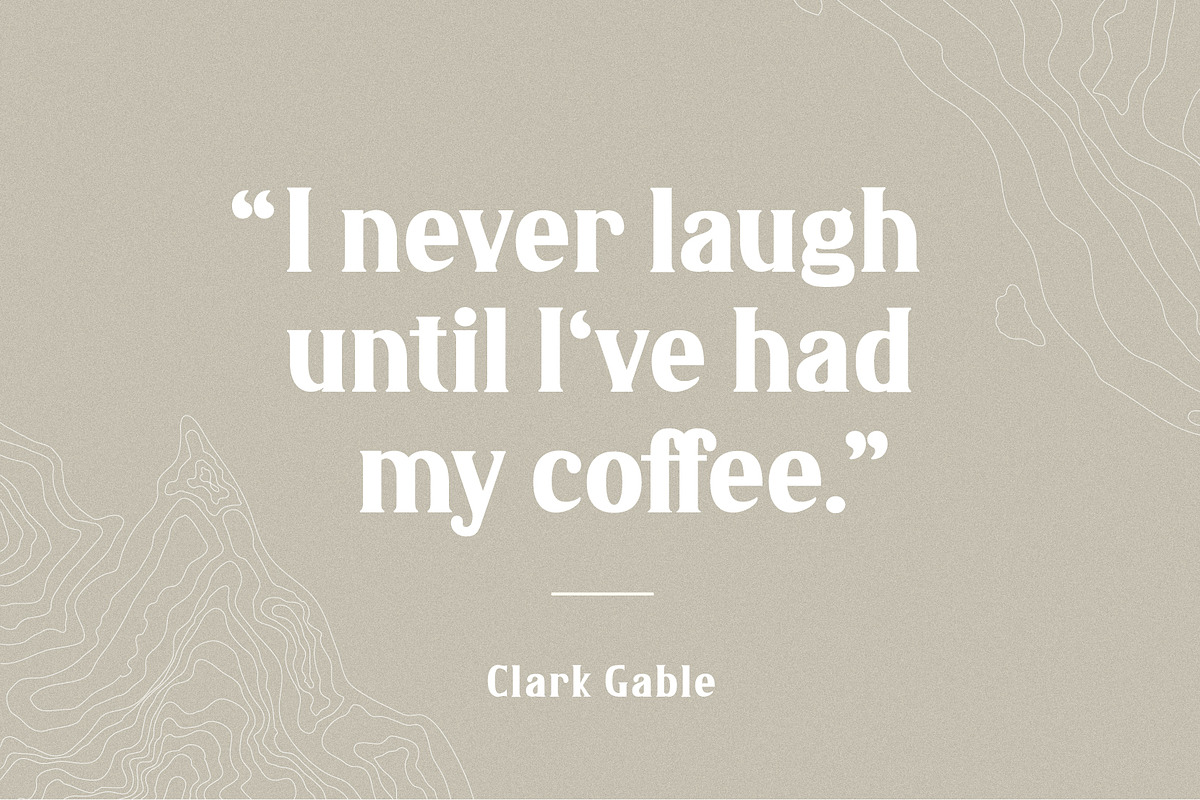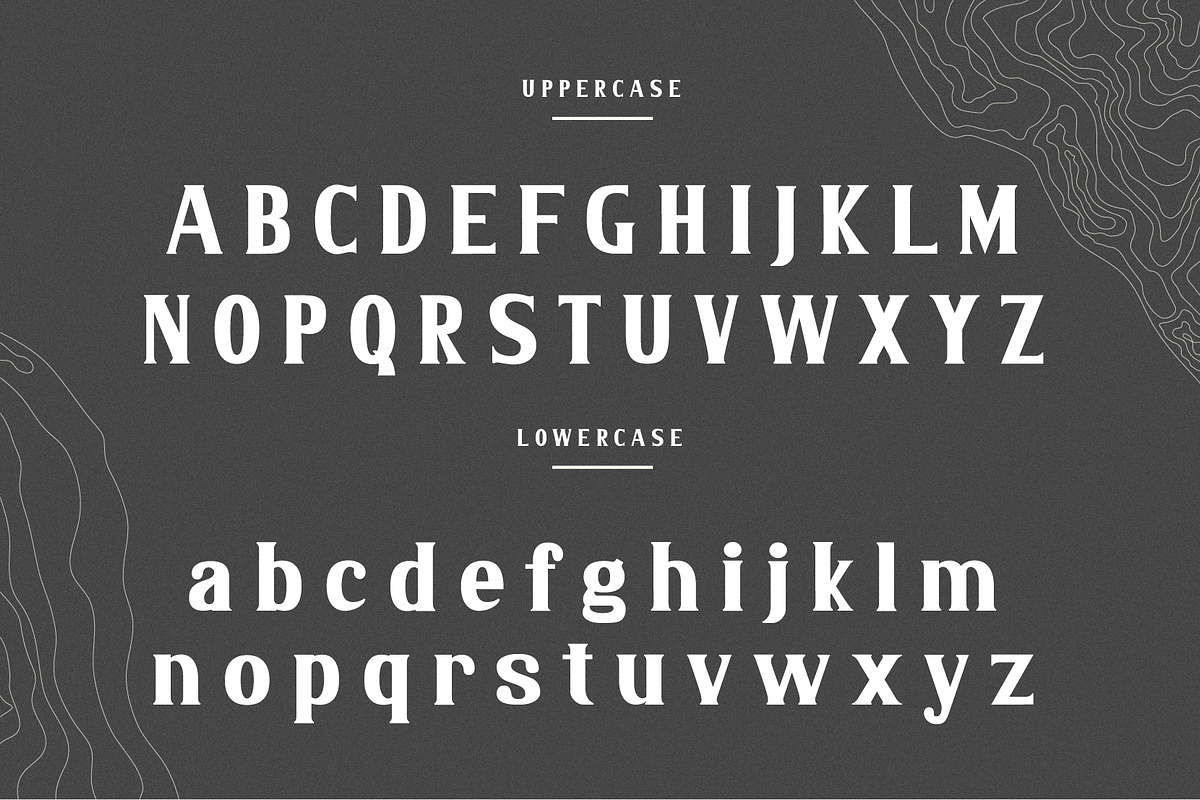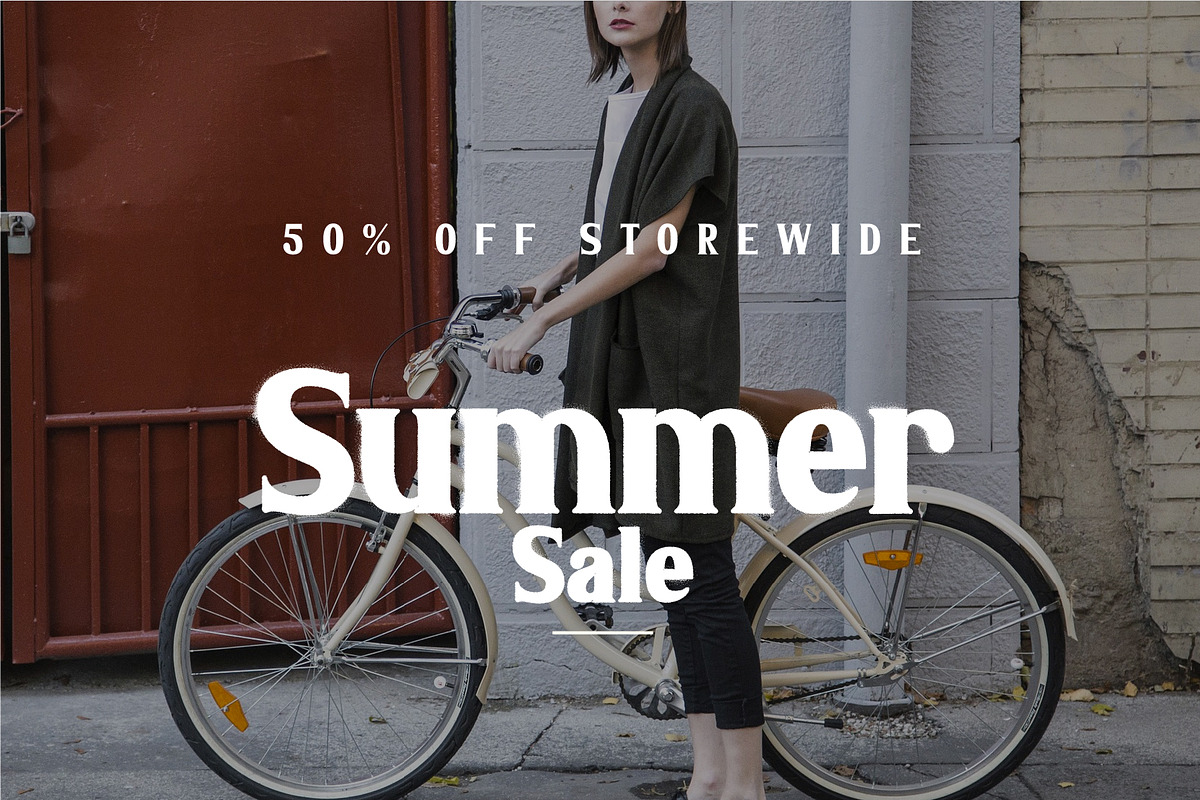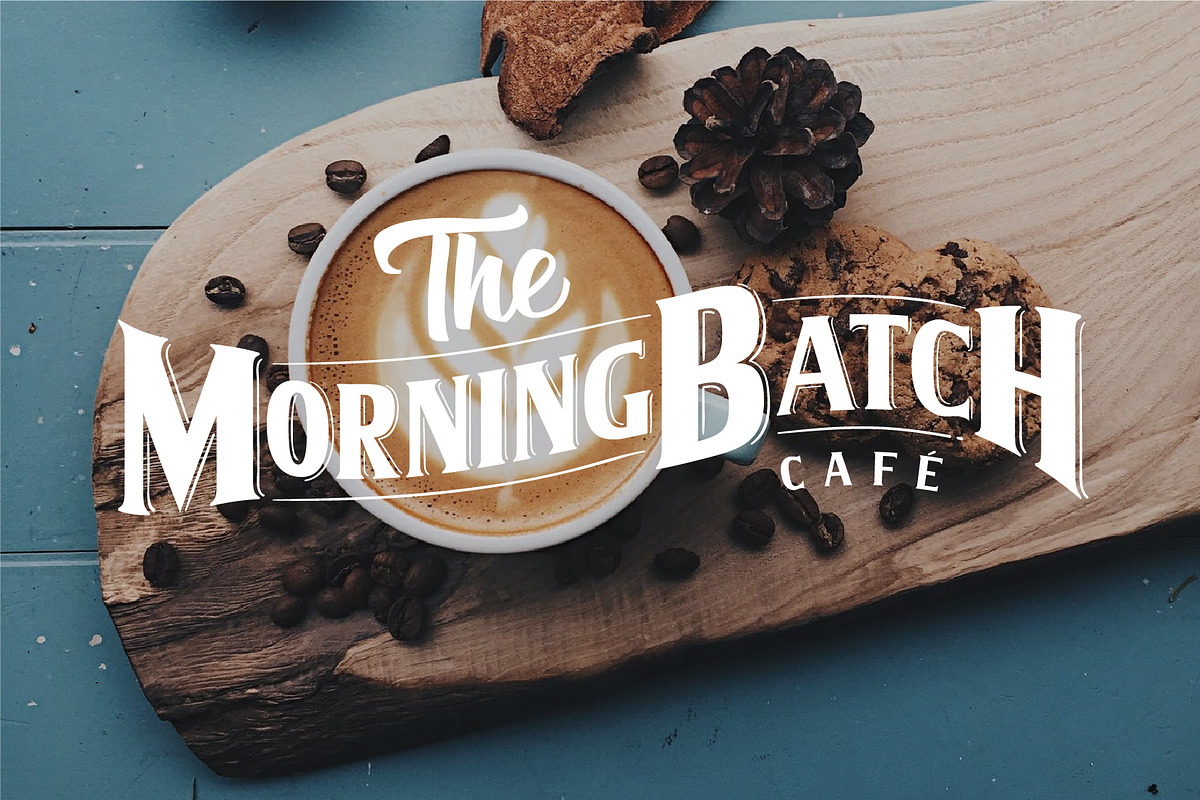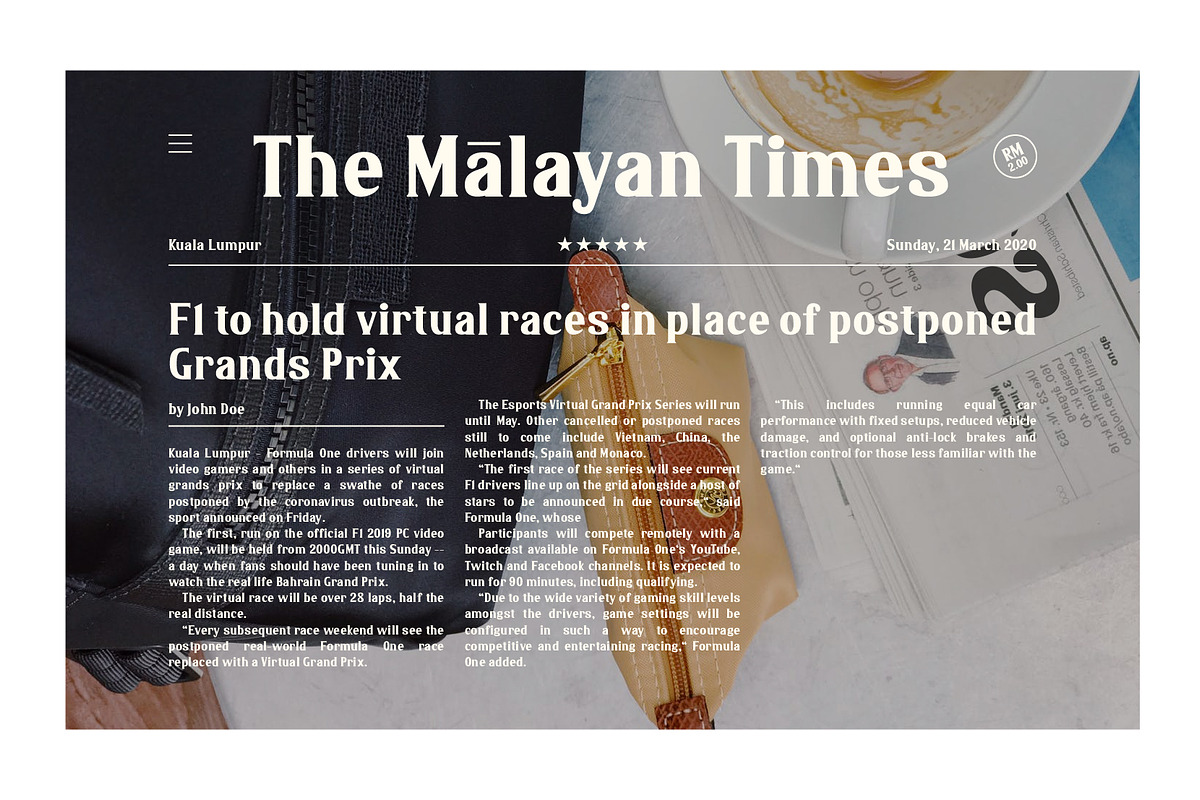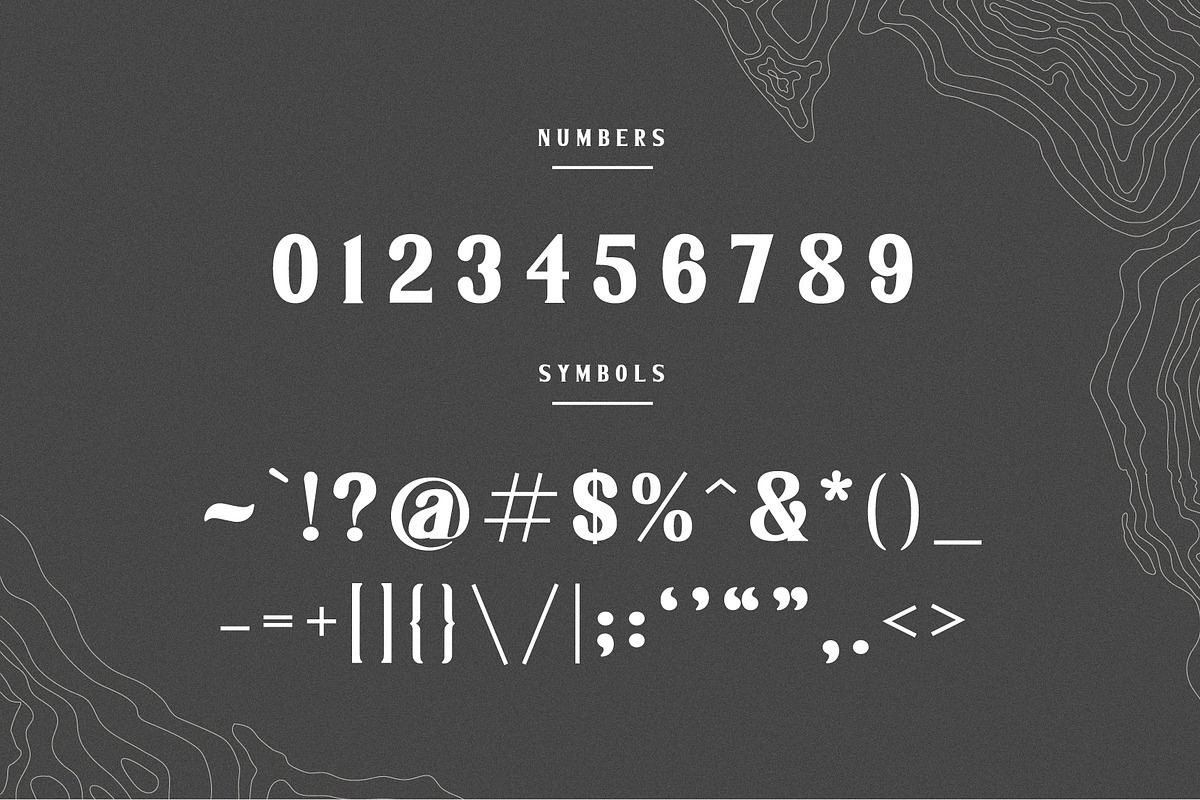
Malaya - A Classic Serif Font
Malaya, just like the Malay peninsula is rich in culture, history and style. A classic handcrafted font that only compliments your classic design, but your very own headlines, fashion and even your own cafe at a corner of an old street.
A handcrafted typeface
A full set of uppercase, lowercase, numbers, symbols and glyphs!
Unique ligatures to style your headlines!
Malaya - A Classic Serif Font by Wilsonkjc fits naturally into Branding, posters, packaging, typography.